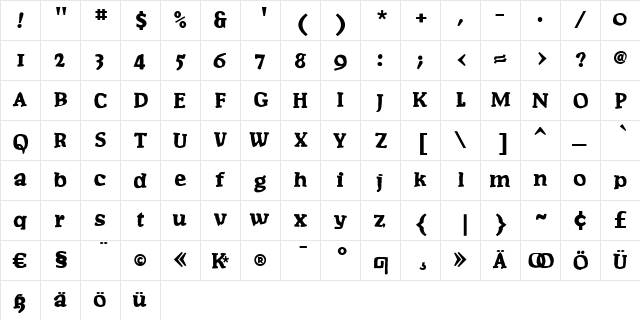
Postertypes Regular
Design Context for Postertypes Typeface
Postertypes is a composed and adaptable typeface that performs quietly and consistently across a wide range of design contexts.